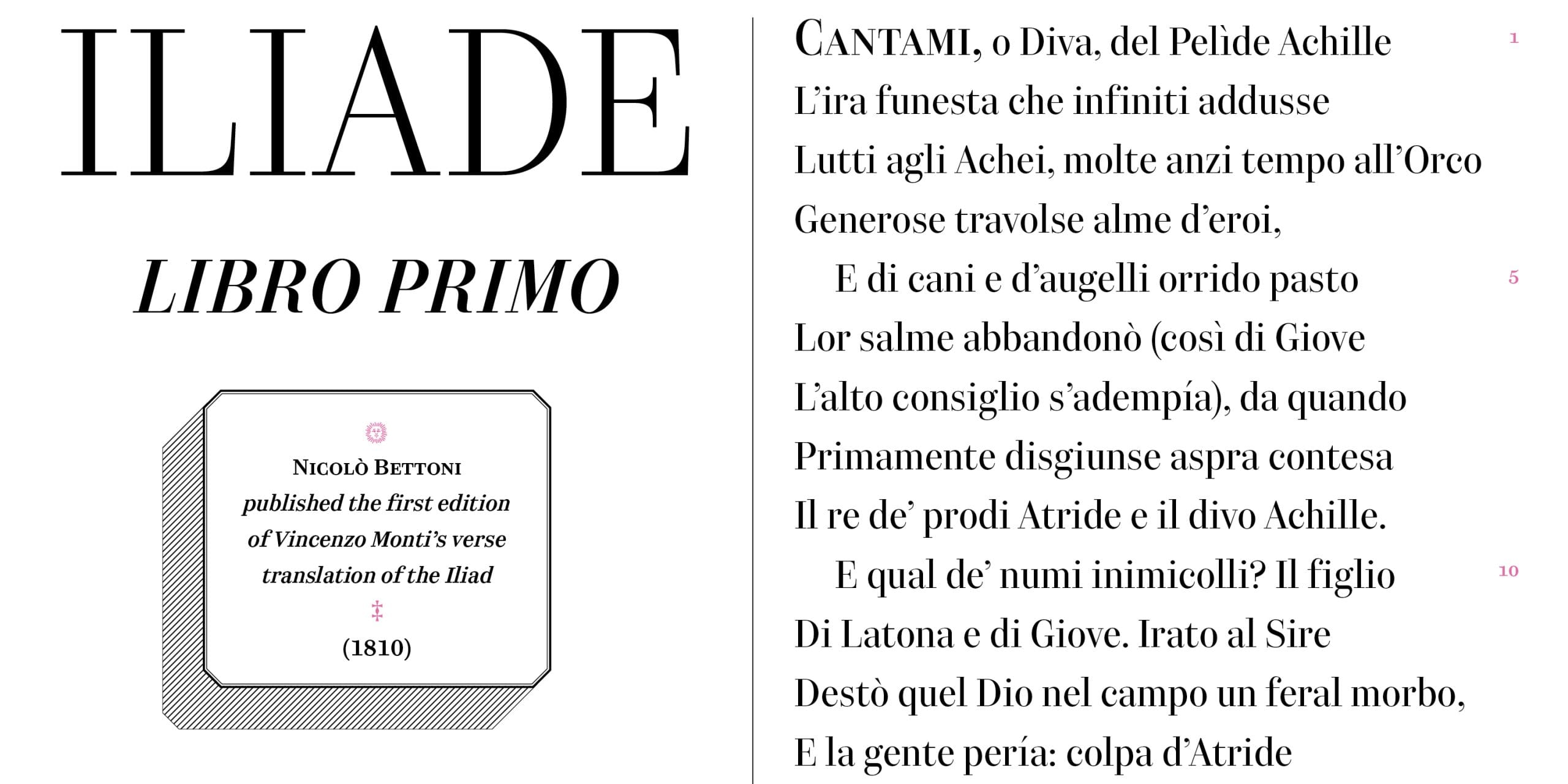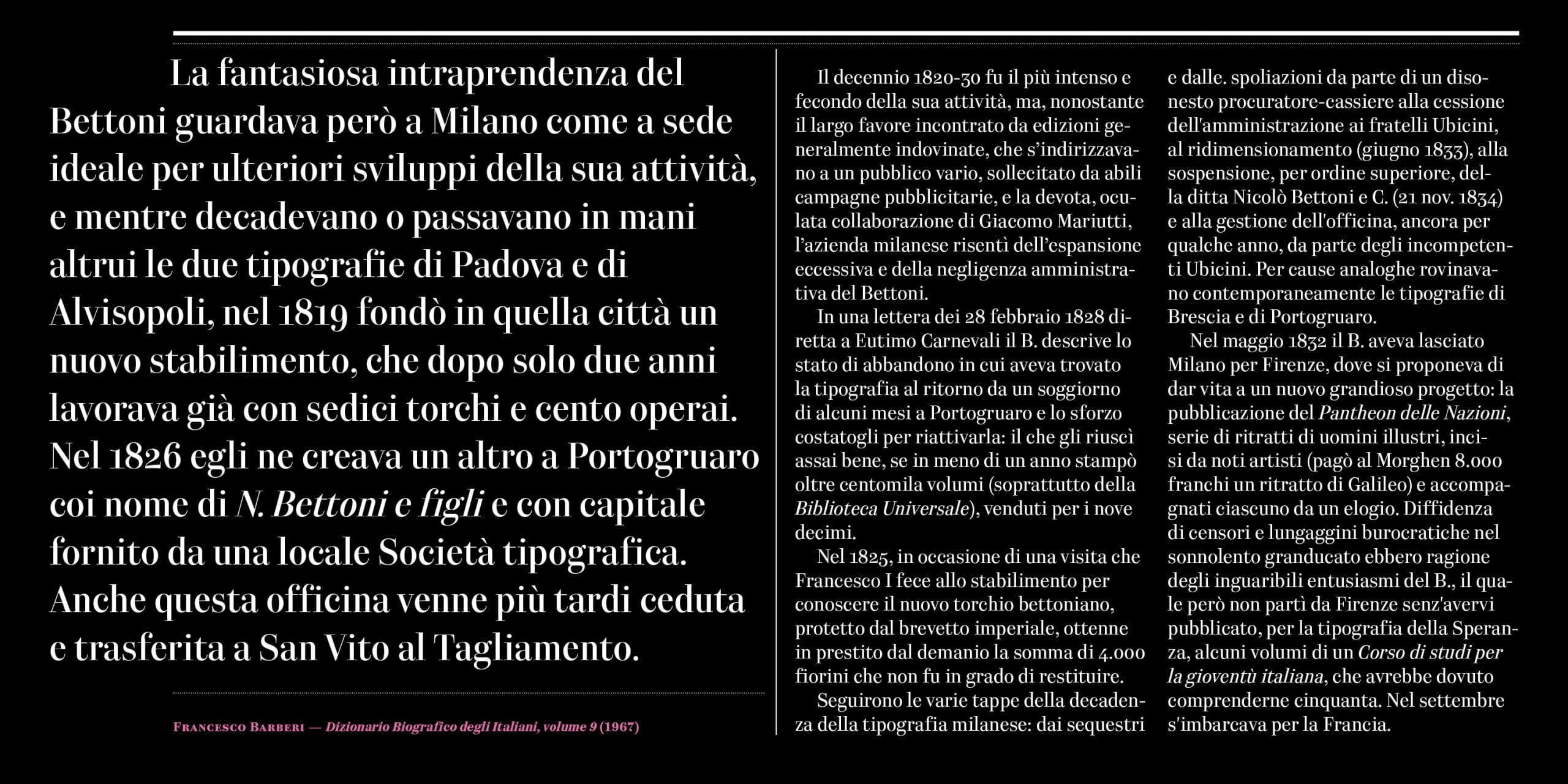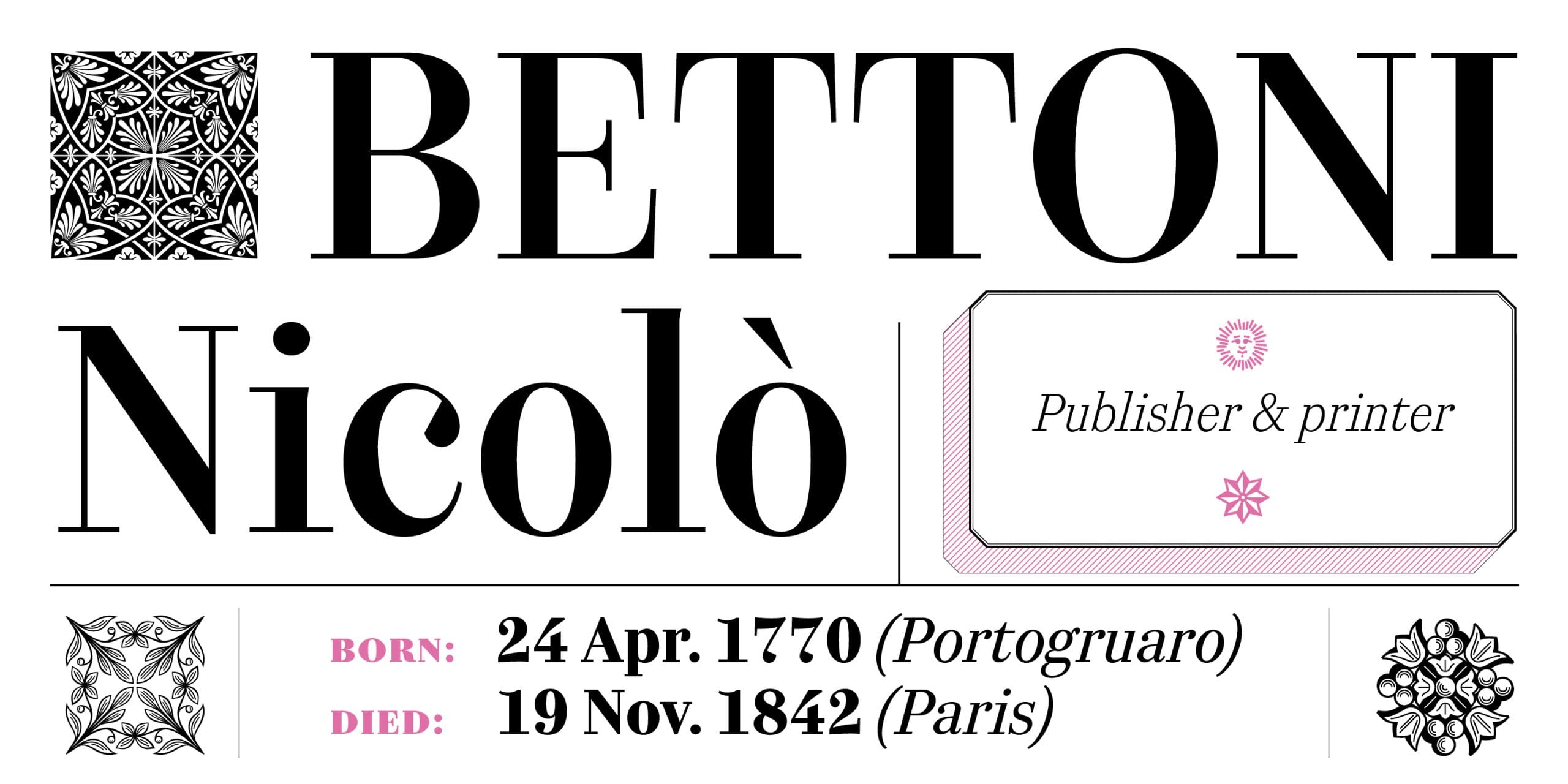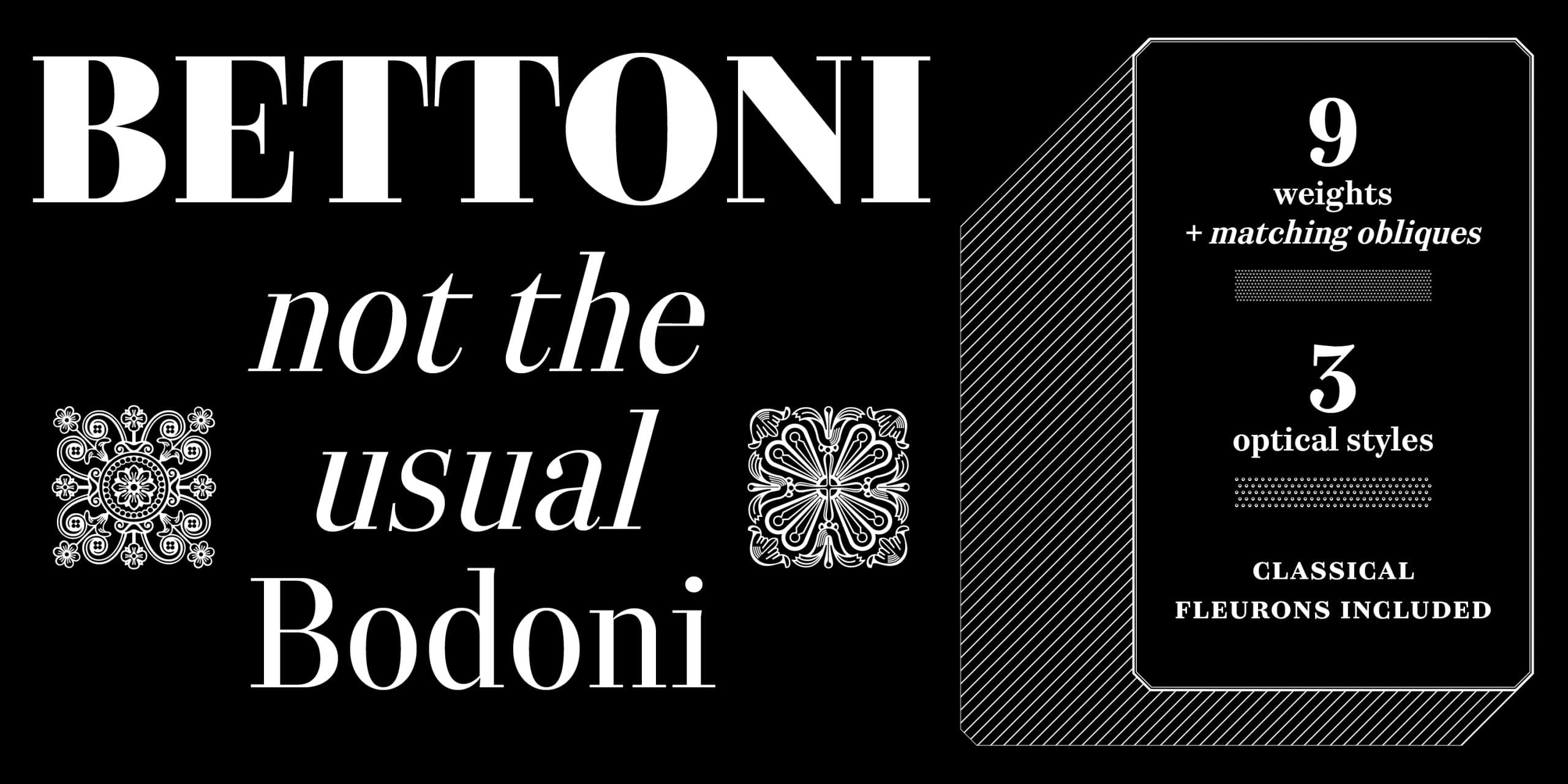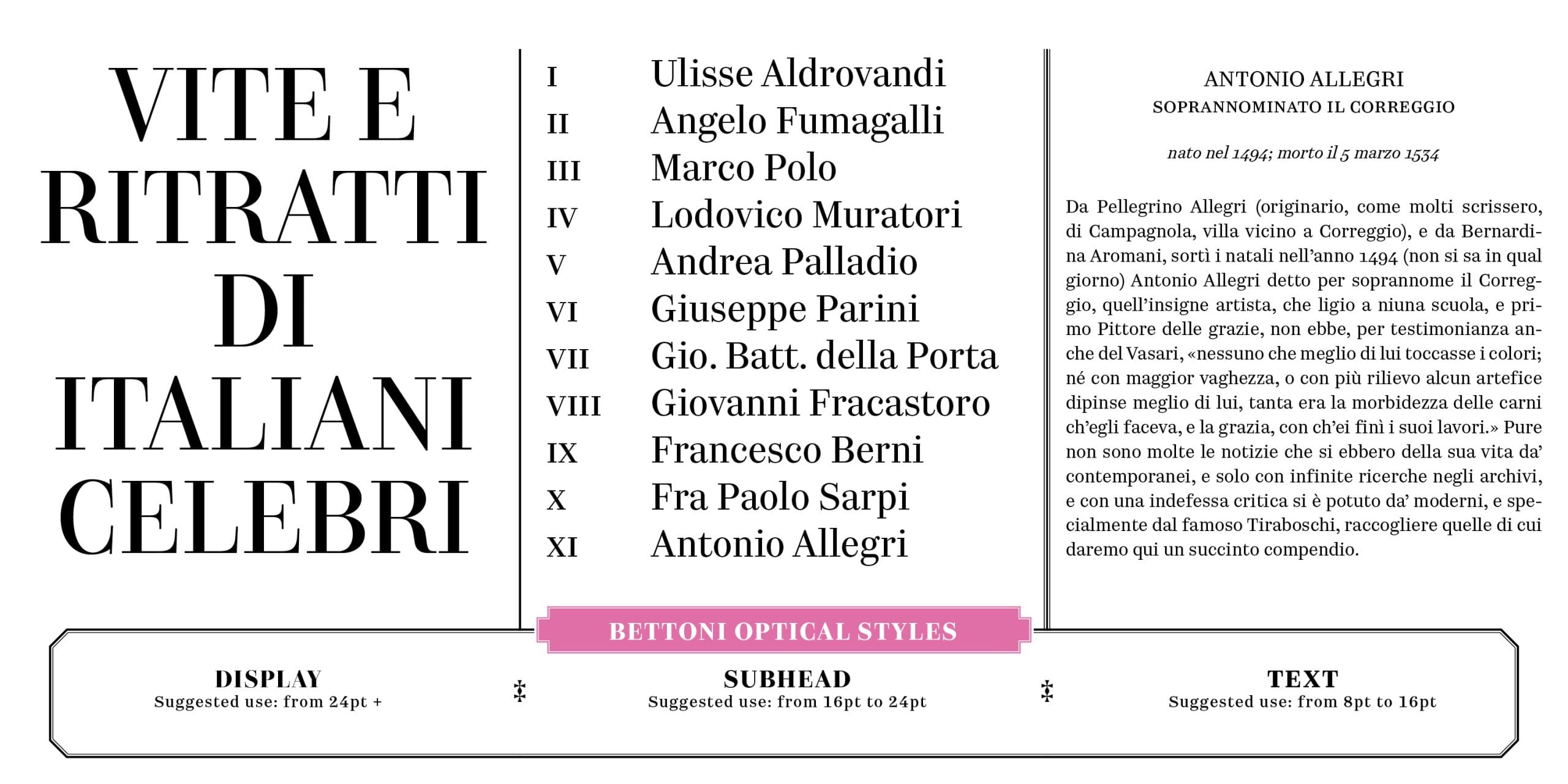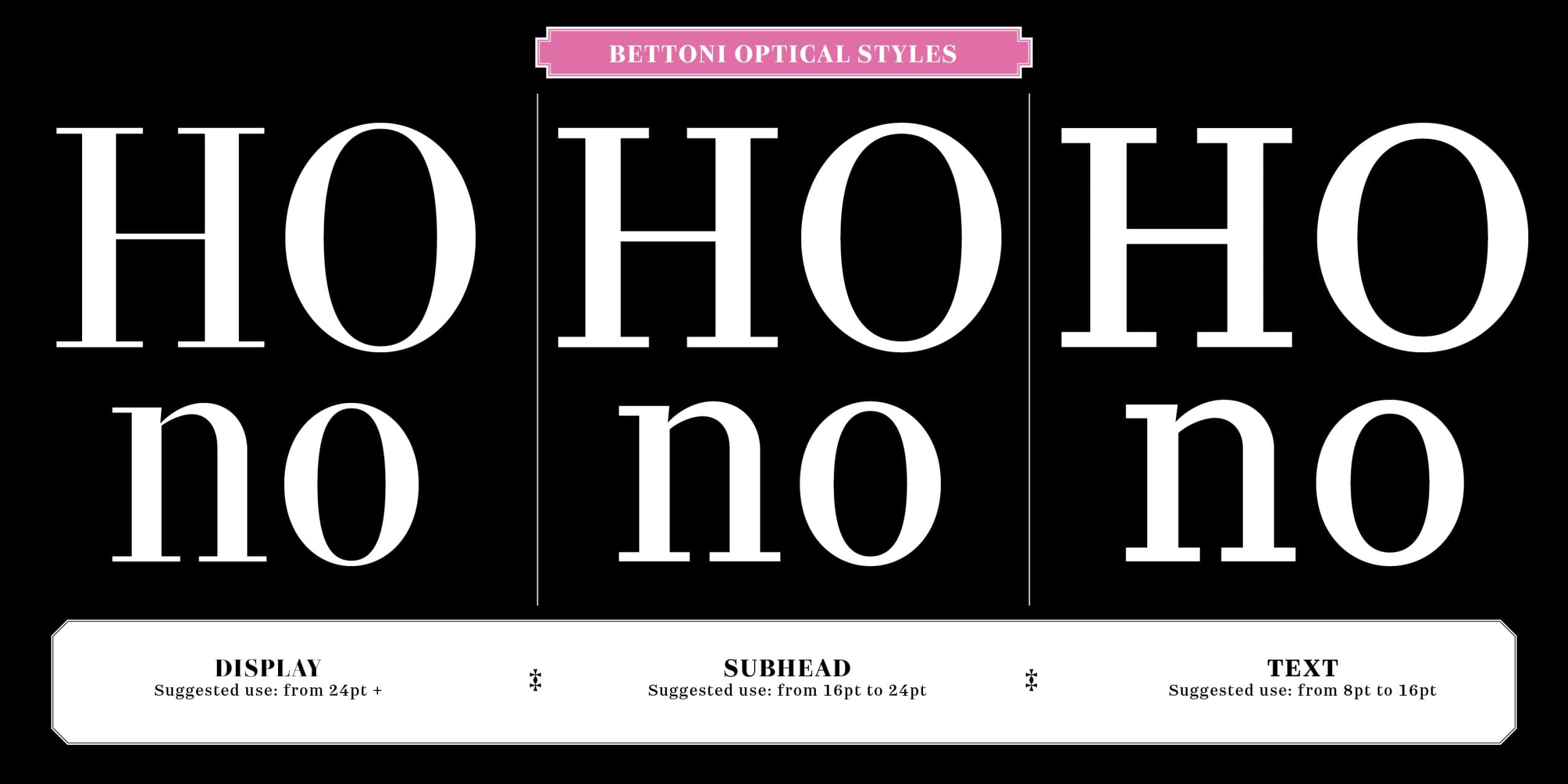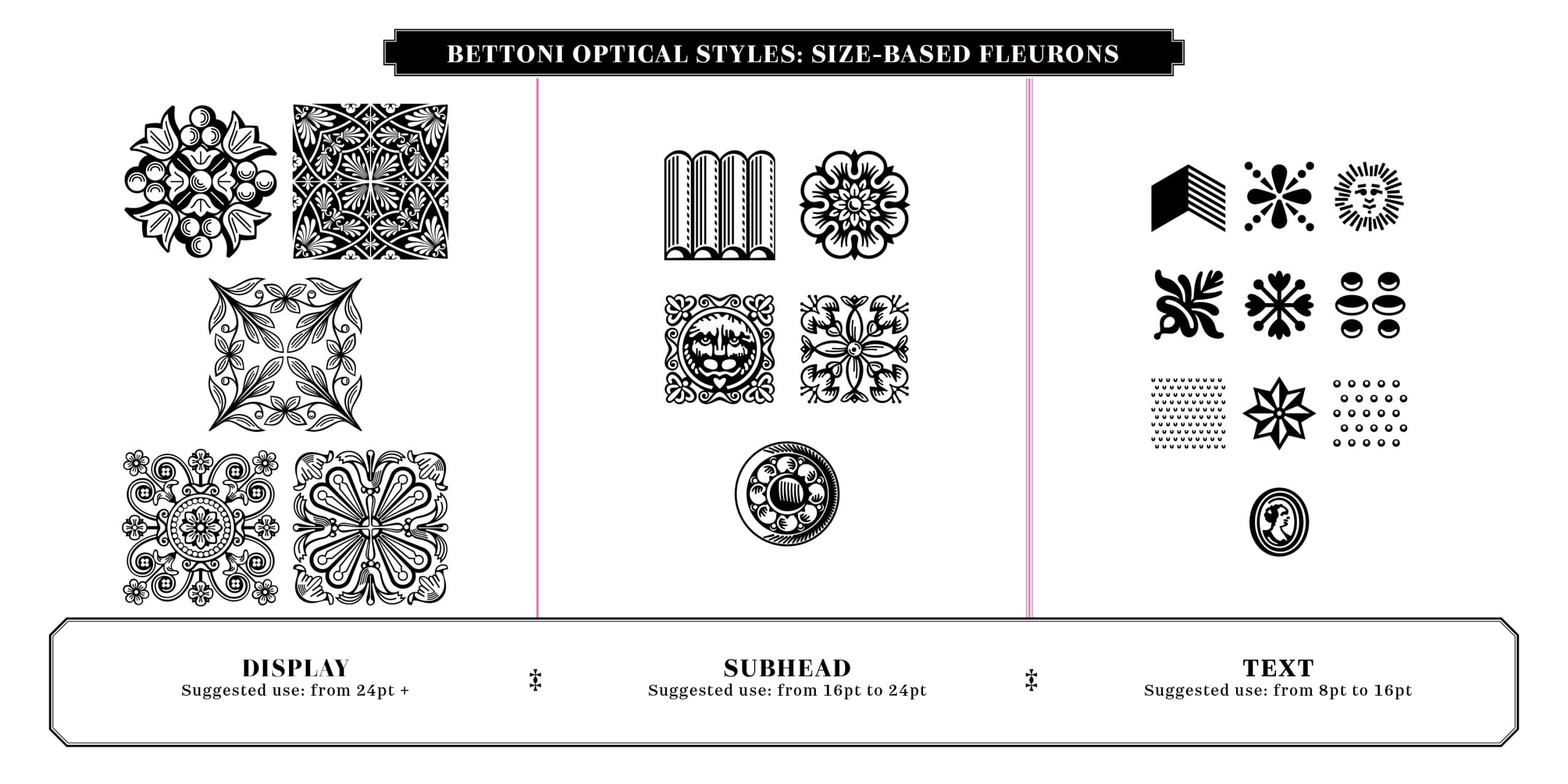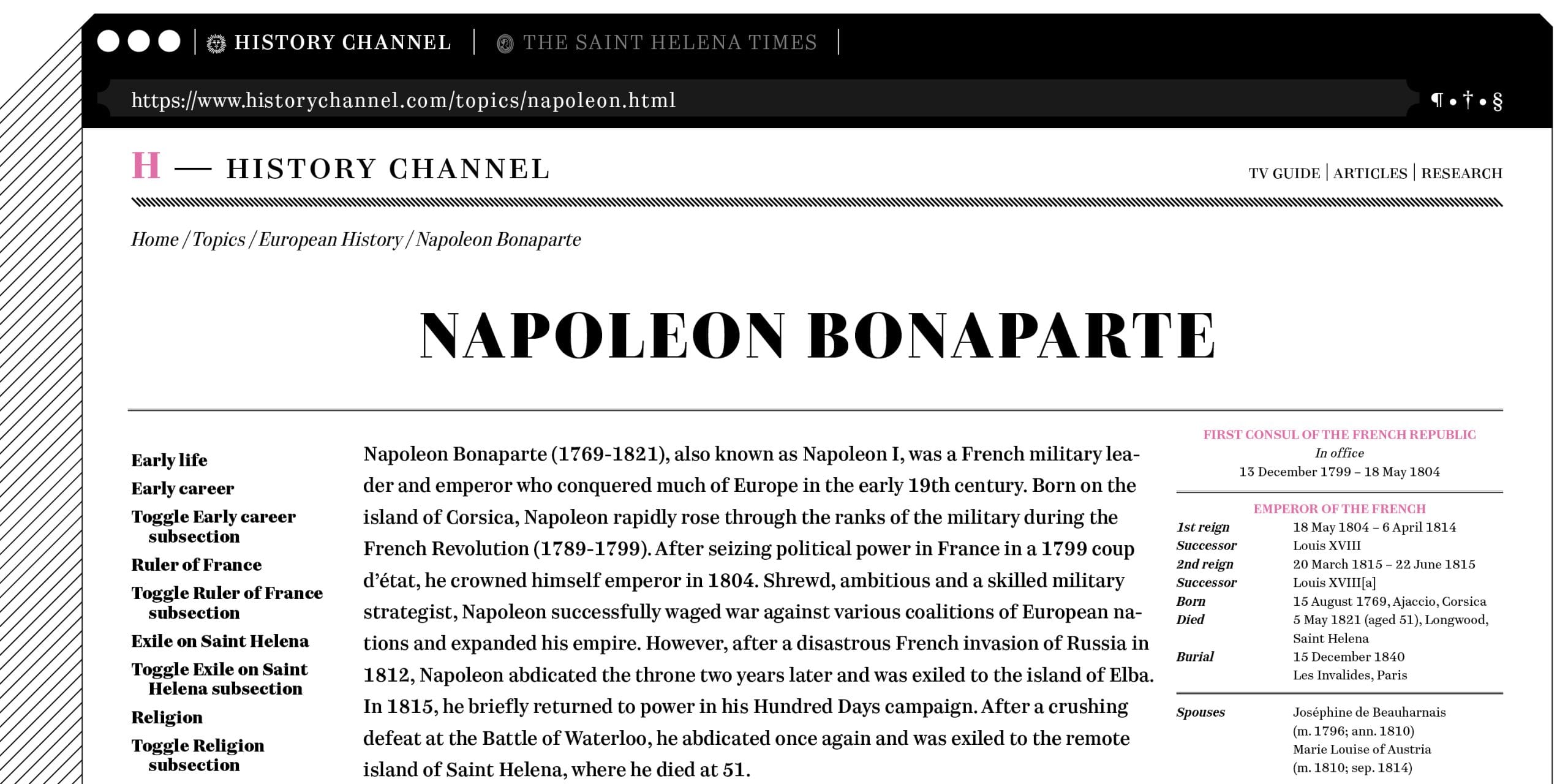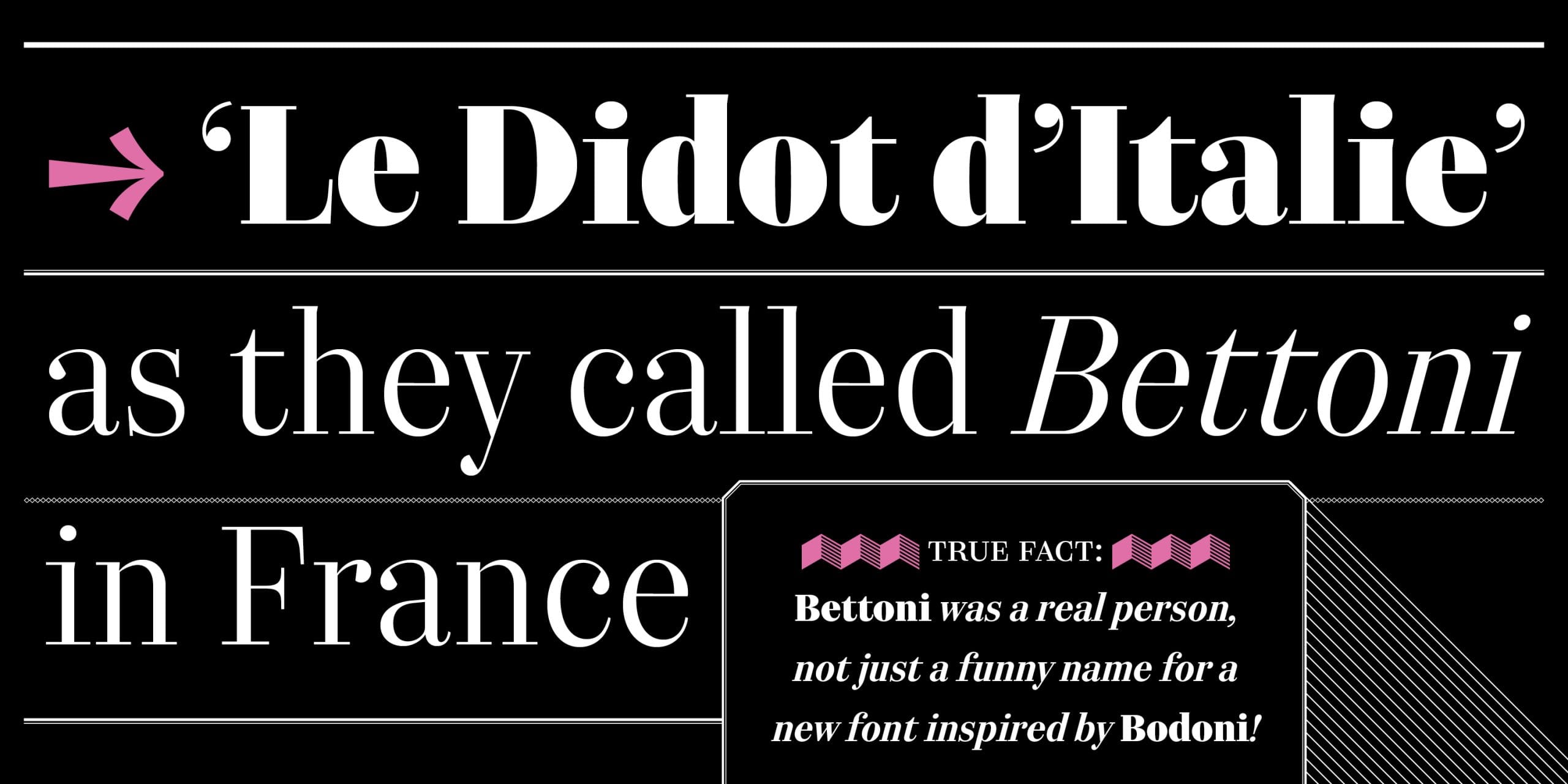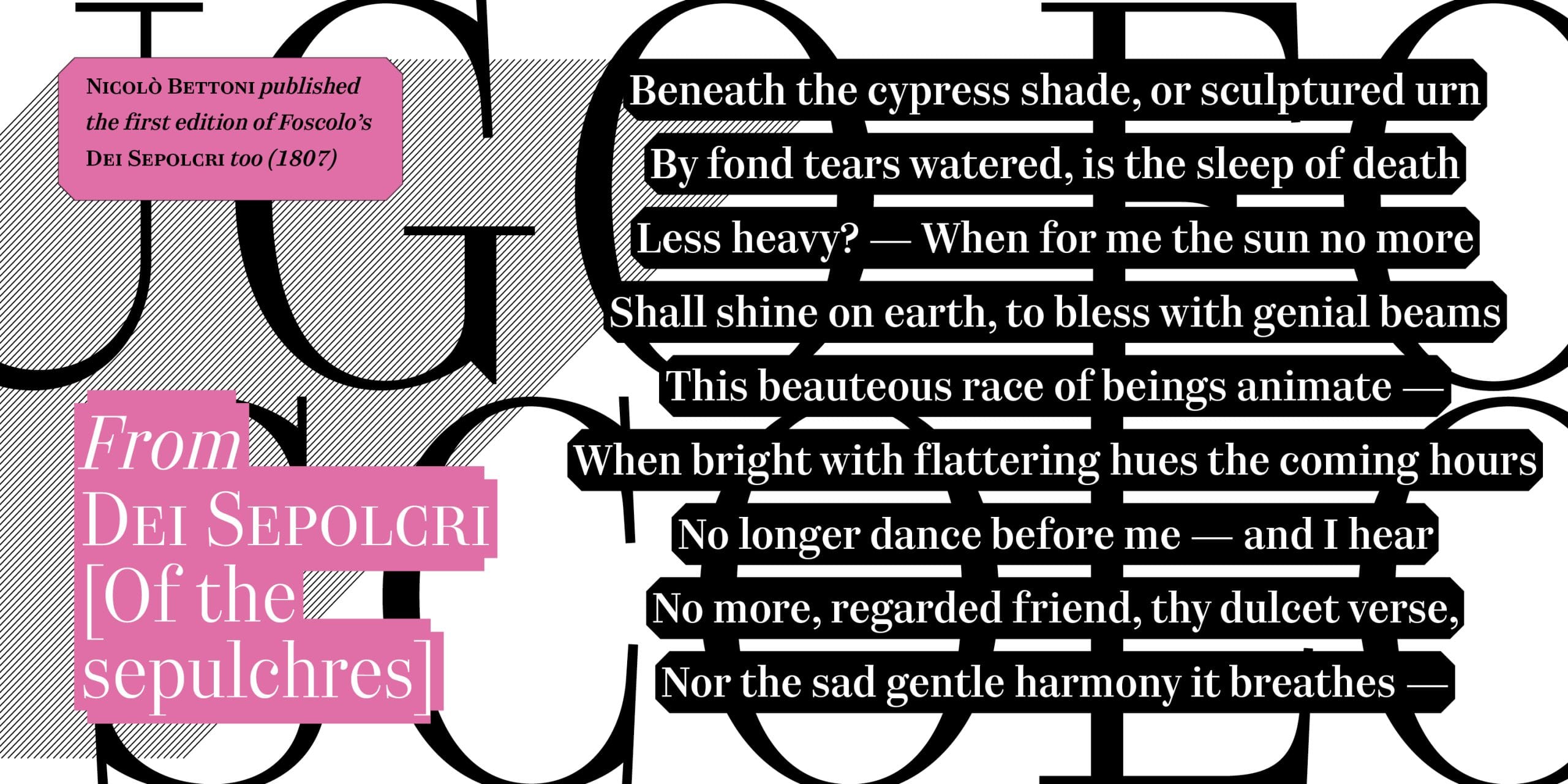
Bettoni is an extensive typeface family in the Bodonian style. Three optical sizes – Text, Subhead and Display – make it outstandingly valuable for publishing, from books to magazines and newspapers, both in print and on screen.
Bettoni has a generous x-height and follows the standard design features of so-called ‘modern’ type: vertical axis, high thick-thin contrast, thin serifs and small apertures. Great care was taken to ensure maximum readability: in Bettoni Text, ideally for use from 6 to 14 points, the letters are wider and the contrast is lower than in the other optical sizes. The Display family is more compact and refined, and works best above 24 points.
Bettoni was inspired by Giambattista Bodoni’s roman types, albeit without reference to any specific one of them. Niccolò Bettoni (1770–1842) was a 19th-century printer and publisher who used Bodoni’s types. He printed a number of Italian classics, including the first edition of Ugo Foscolo’s poem Dei sepolcri (1808). Signor Bettoni used several of Bodoni’s types, often without paying for them, and imitated Bodoni’s neoclassical style in the layout of his books.
Bettoni has nine weights (UltraLight, Light, Book, Regular, Regular-Dark, Medium, SemiBold, Bold, Black), each with its oblique companion. Other attributes of Bettoni are small caps, several sets of figures, including old style and lining, tabular and proportional, superior and inferior figures and fractions. Each Bettoni family font file also contains twenty border ornaments, closely based on the original Bodoni and Bettoni fleurons that can still be seen in their type specimens.
Riccardo Olocco
Tabular figures
Oldstyle figures
Tabular Oldstyle figures
Superscript and subscript
Fraction
Small Caps
Optical size based fleurons